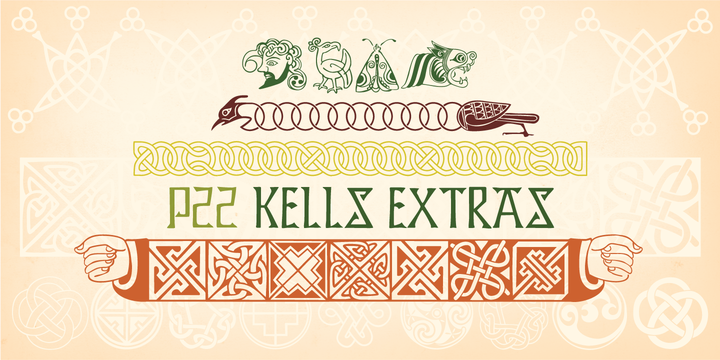
P22 Kells Extras™
Designed by: Richard Kegler, David Setlik
Designed when: 1996
P22 Kells
The Book of Kells is a ninth century gospel created in the British Isles and is considered to be the finest existing example of early Celtic art. The book itself is now housed in the Trinity College Library, Dublin. This computer set combines historical accuracy with functional readability and features 72 elements and linking borders.